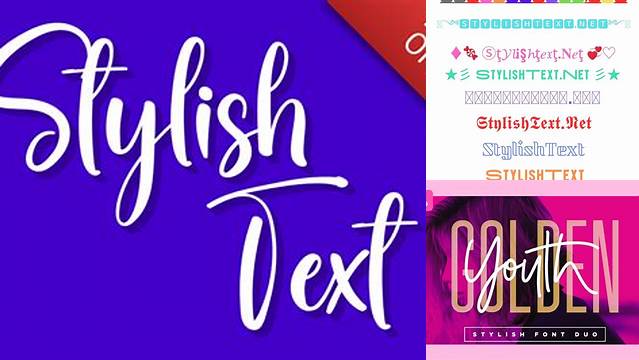
Pretty Fonts Generator: Create Stylish Text Online
What is a Pretty Fonts Generator?
Hey guys! Ever wanted to make your text look super cool and eye-catching? That's where a pretty fonts generator comes in handy. It's basically a tool that lets you transform regular text into something way more stylish using different fonts and characters. Instead of being stuck with the same old default font, you can jazz things up with cursive, bold, italic, or even funky decorative fonts. These generators are super user-friendly – you just type in your text, pick a font you like, and bam! You've got some seriously awesome text ready to copy and paste wherever you need it.
These generators work by utilizing Unicode characters. Unicode is a universal character encoding standard that assigns a unique number to each character, no matter the platform, program, or language. A pretty fonts generator uses these Unicode characters to create stylized text. While it looks like you're changing the font, you're actually replacing standard characters with their visually altered Unicode equivalents. This means you can use these "fonts" almost anywhere, even on social media platforms that don't allow you to change the font directly.
The great thing about using a pretty fonts generator is that it doesn't require you to download or install anything. Everything happens online, making it super convenient. Plus, they often come with a bunch of different font styles to choose from, so you can really find something that matches your vibe. Whether you're creating captions for Instagram, designing eye-catching headings for your blog, or just want to add some flair to your messages, a pretty fonts generator is a quick and easy way to make your text stand out. It's all about making your content more visually appealing and grabbing people's attention in a fun and creative way.
Why Use a Font Generator?
So, why should you even bother using a font generator? Well, there are tons of reasons! First off, it's a fantastic way to add some personality to your text. Let's be honest, default fonts can be pretty boring. A font generator lets you inject your own style and make your messages, posts, and designs truly unique. Whether you're aiming for elegant, playful, or edgy, there's a font out there that perfectly captures the vibe you're going for.
Another great reason to use a pretty fonts generator is to make your content stand out. In today's crowded digital world, it's getting harder and harder to grab people's attention. Using a unique font can be just the thing to make your social media posts, website headings, or marketing materials pop. A visually appealing font can catch the eye and entice people to stop scrolling and actually read what you have to say. Think of it as a way to add some visual oomph to your content, making it more memorable and shareable.
Font generators are also incredibly useful for creating a consistent brand identity. If you're running a business or building a personal brand, using the same fonts across all your materials can help create a cohesive and professional look. A font generator allows you to easily create text in your chosen style, ensuring that your branding remains consistent across all platforms. This can help increase brand recognition and make your business look more polished and professional.
Using a font generator can save you a ton of time and effort. Instead of manually searching for and installing different fonts, you can simply use a font generator to quickly create stylish text in seconds. This is especially useful if you need to create a lot of content quickly. Plus, many font generators offer additional features, such as the ability to add symbols, emojis, and other decorative elements, further enhancing your text.
Different Types of Font Styles
Alright, let's dive into the fun part – the different types of font styles you can play around with using a pretty fonts generator! There's a whole world of options out there, from elegant scripts to bold and funky designs. Knowing what's available can help you pick the perfect font to match your message and overall aesthetic. Let's take a peek at some popular categories:
Cursive Fonts: Cursive fonts are all about elegance and sophistication. They mimic the look of handwriting, with flowing strokes and connected letters. These fonts are perfect for adding a touch of class to invitations, greeting cards, or any design that needs a refined feel. They bring a sense of artistry and grace.
Bold Fonts: When you need to make a statement, bold fonts are your go-to. With their thick, heavy strokes, they command attention and add emphasis to your text. These fonts are great for headlines, titles, and anything else you want to stand out. They convey confidence and strength.
Italic Fonts: Italic fonts lean to the right, giving your text a slanted and stylish look. They're often used to add emphasis, highlight specific words, or create a sense of movement. Italic fonts can also bring a touch of elegance to your designs, especially when paired with a contrasting font style.
Decorative Fonts: If you're looking to get creative and playful, decorative fonts are the way to go. These fonts come in a wide variety of styles, from whimsical and cartoonish to futuristic and abstract. They're perfect for adding a unique and eye-catching touch to your designs. Just be sure to use them sparingly, as they can sometimes be difficult to read.
Gothic Fonts: Gothic fonts, also known as blackletter fonts, have a distinctive medieval look. They feature intricate, angular letterforms that evoke a sense of history and tradition. These fonts are great for adding a touch of drama and sophistication to your designs, especially in historical or fantasy-themed projects.
Retro Fonts: Take a trip down memory lane with retro fonts! These fonts capture the essence of past decades, from the groovy 70s to the neon 80s. They're perfect for adding a nostalgic touch to your designs, whether you're creating a vintage-inspired poster or a retro-themed website.
Pixel Fonts: Pixel fonts are all about simplicity and minimalism. They mimic the look of old-school computer screens, with their blocky, pixelated letterforms. These fonts are great for adding a techy or retro feel to your designs, especially in video game-themed projects.
How to Use a Pretty Fonts Generator
Using a pretty fonts generator is super easy and straightforward. You don't need any fancy design skills or technical know-how. Just follow these simple steps, and you'll be creating stylish text in no time!
Step 1: Find a Font Generator: The first step is to find a font generator online. There are tons of free options available, so just do a quick search and pick one that looks good to you. Some popular choices include LingoJam, Cool Symbol, and FontGet. Most of these generators work in a similar way, so don't worry too much about which one you choose. Just make sure it's a reputable site and doesn't require you to download anything.
Step 2: Type Your Text: Once you've found a font generator, simply type your text into the input box. This is where you'll write the message or phrase you want to stylize. You can type anything you want, from a single word to a whole paragraph. Just keep in mind that longer pieces of text may look cluttered in certain font styles, so it's best to use shorter phrases for maximum impact.
Step 3: Choose a Font Style: After you've typed your text, it's time to choose a font style. Most font generators will display a list of available fonts below the input box. Simply scroll through the list and click on the font you like. As you click, the text in the output box will change to reflect the selected font style. Take your time and experiment with different fonts until you find one that perfectly matches your vision.
Step 4: Copy and Paste: Once you've found the perfect font, simply copy the text from the output box. You can do this by highlighting the text and pressing Ctrl+C (or Cmd+C on a Mac) or by right-clicking and selecting "Copy". Then, simply paste the text wherever you want to use it. You can paste it into social media posts, emails, documents, or any other application that supports text.
Step 5: Enjoy Your Stylish Text: That's it! You've successfully created stylish text using a font generator. Now you can enjoy your eye-catching messages and designs. Remember, you can always go back and experiment with different fonts and styles to create even more unique looks.
Where to Use Your New Fonts
Okay, so you've got some awesome new fonts – great! But where can you actually use them? The beauty of these pretty fonts generator fonts is that they're super versatile. Because they're based on Unicode characters, you can pretty much use them anywhere you can paste text. Here are some cool ideas:
- Social Media: This is a big one! Use your fancy fonts to jazz up your Instagram captions, Twitter bios, Facebook posts, and even TikTok videos. A unique font can help your content stand out from the crowd and grab people's attention.
- Messaging Apps: Add some flair to your text messages, WhatsApp chats, and Telegram conversations. Surprise your friends with a fun and stylish message. It's a great way to add some personality to your everyday communication.
- Online Forums and Communities: Use unique fonts in your forum signatures, posts, and profiles. It's a great way to express yourself and make your presence known in online communities.
- Website Headings and Titles: If you have a blog or website, use stylish fonts in your headings and titles to make your content more visually appealing. Just be sure to use them sparingly, as too many different fonts can make your site look cluttered.
- Presentations: Add some visual interest to your presentations by using unique fonts in your slides. A well-chosen font can help emphasize key points and make your presentation more engaging.
- Invitations and Cards: Create beautiful and personalized invitations, greeting cards, and thank-you notes using stylish fonts. It's a great way to add a touch of elegance and sophistication to your special occasions.
- Resumes and Cover Letters: Stand out from the competition by using a unique font in your resume and cover letter. Just be sure to choose a font that is professional and easy to read.
Limitations of Font Generators
While pretty fonts generators are super handy, it's important to be aware of their limitations. They're not perfect, and there are some things you should keep in mind before you start using them everywhere.
Not Real Fonts: First off, it's important to remember that these aren't real fonts in the traditional sense. They're actually sets of Unicode characters that look like different fonts. This means they might not display correctly on all devices or platforms. Some older systems or browsers might not support all the Unicode characters used by these generators, which can result in your text appearing as boxes or question marks.
Accessibility Issues: Another potential issue is accessibility. People who use screen readers or other assistive technologies might have difficulty interpreting these stylized characters. This can make your content inaccessible to people with disabilities, which is definitely something you want to avoid. When in doubt, it's always best to stick with standard fonts that are designed to be accessible.
Inconsistency Across Platforms: The appearance of these fonts can also vary across different platforms and devices. What looks great on your computer might not look so great on someone else's phone. This is because different operating systems and browsers use different rendering engines, which can affect how Unicode characters are displayed. So, it's always a good idea to test your text on different devices to make sure it looks consistent.
Limited Font Choices: While there are many different font styles available, the selection is still limited compared to traditional font libraries. You might not be able to find the exact font you're looking for, and you might have to settle for something that's close but not quite perfect.
Copy-Pasting Issues: Sometimes, copying and pasting text from a font generator can cause formatting issues. The text might not paste correctly, or it might lose its formatting when pasted into certain applications. This can be frustrating, but there are usually ways to fix it. Try pasting the text into a plain text editor first, and then copy it from there into your final destination.
Pretty Fonts Generator for Social Media
Using a pretty fonts generator for social media is like giving your online presence a stylish makeover. It's all about making your posts stand out in a sea of sameness. Think of it as adding a personal touch to your digital voice, making your content more engaging and memorable. Whether you're crafting the perfect Instagram caption, tweeting out a witty observation, or updating your Facebook status, a unique font can help you grab attention and express your personality.
The key to rocking a pretty fonts generator on social media is knowing how to use it effectively. You don't want to go overboard and make your posts look cluttered or hard to read. Instead, focus on using fonts strategically to highlight key points, add emphasis, or create a specific mood. For example, you might use a cursive font for a romantic quote, a bold font for a powerful statement, or a playful font for a lighthearted joke.
When choosing a font, consider the overall tone and style of your social media presence. Are you going for a sophisticated and elegant look? Or do you prefer a more casual and playful vibe? Choose fonts that align with your brand and help you convey the message you want to send. And don't be afraid to experiment! Try out different fonts and see what works best for you.
Another important tip is to make sure your fonts are easy to read. While fancy fonts can be eye-catching, they're not always the most legible. Avoid fonts that are too small, too thin, or too intricate. You want your followers to be able to read your posts without straining their eyes.
Finally, be mindful of accessibility. Not everyone can see or read your fonts in the same way. Some users might have visual impairments or use screen readers. To make your social media posts more accessible, consider adding alternative text to your images and using standard fonts whenever possible. You can also use emojis and symbols to add visual interest without relying solely on fancy fonts.
Pretty Fonts Generator for Instagram
Instagram is all about visuals, right? So, using a pretty fonts generator can really help you level up your Insta game. Think about it: everyone's scrolling through endless feeds, so you need something to make your captions pop. A cool font can be that little extra something that catches someone's eye and makes them stop to read what you have to say.
Now, Instagram doesn't let you change the actual font within the app itself. That's where these font generators come in handy. You type your caption into the generator, pick a font you like, copy the stylized text, and paste it into your Instagram caption. Boom! Instant visual upgrade.
But here's the thing: you don't want to go overboard. A super fancy, hard-to-read font might look cool at first glance, but if people can't easily read your caption, they're just going to scroll on by. You want something that's both stylish and legible. Cursive fonts can be great for adding a touch of elegance, while bold fonts can help you emphasize key points. Just make sure it's easy on the eyes.
Another tip: use fonts sparingly. A little bit of a cool font can go a long way. Try using it for the first sentence of your caption to grab attention, or for a key word or phrase that you want to highlight. You don't need to use a fancy font for every single word.
And remember, accessibility matters. Some people use screen readers to access Instagram, and those screen readers might not be able to interpret your fancy fonts correctly. To make your content more accessible, consider adding alternative text to your images and using emojis to add visual interest. You can also use standard fonts for the main part of your caption and reserve the fancy fonts for shorter, more decorative elements.
Online Font Generator Tools
When it comes to online font generator tools, you've got a ton of options to choose from. Some are simple and straightforward, while others offer a wide range of features and customization options. Here are a few popular choices to get you started:
LingoJam: LingoJam is a super easy-to-use font generator that's perfect for beginners. Just type your text into the input box, and it will instantly generate a variety of different font styles. You can then copy and paste the stylized text wherever you need it. LingoJam is great for creating quick and simple fonts for social media or messaging apps.
Cool Symbol: Cool Symbol is another popular font generator that offers a wide range of different font styles, including cursive, bold, italic, and decorative fonts. It also includes a variety of symbols and emojis that you can add to your text. Cool Symbol is great for creating more elaborate and eye-catching fonts.
FontGet: FontGet is a comprehensive font website that offers a wide range of free fonts that you can download and use in your projects. It also includes a font generator tool that allows you to create stylized text using different fonts. FontGet is a great resource for finding high-quality fonts for both personal and commercial use.
Fancy Text Generator: Fancy Text Generator is a simple and straightforward font generator that offers a variety of different font styles, including cursive, bold, italic, and upside-down text. It also includes a variety of symbols and emojis that you can add to your text. Fancy Text Generator is great for creating quick and fun fonts for social media or messaging apps.
Texty Text: Texty Text is a font generator that's designed specifically for social media. It offers a variety of different font styles that are optimized for use on platforms like Instagram, Twitter, and Facebook. Texty Text is great for creating fonts that will stand out in the crowded social media landscape.
When choosing a font generator tool, consider your needs and preferences. Some tools are better for creating simple fonts, while others are better for creating more elaborate fonts. Some tools are free, while others require a subscription. Experiment with different tools until you find one that you like.
Free Font Generator Websites
Looking for a pretty fonts generator that won't cost you a dime? You're in luck! There are tons of free font generator websites out there that let you create stylish text without spending any money. These websites are great for personal use, social media, or any other project where you want to add a touch of flair without breaking the bank.
One of the best things about free font generator websites is that they're super easy to use. You don't need any special design skills or technical know-how. Just type your text into the input box, choose a font style, and copy the stylized text. It's that simple!
Many free font generator websites offer a wide range of different font styles to choose from, including cursive, bold, italic, and decorative fonts. You can also find fonts that are inspired by different eras, such as retro fonts, gothic fonts, and pixel fonts.
Some free font generator websites also include additional features, such as the ability to add symbols, emojis, and other decorative elements to your text. This can help you create even more unique and eye-catching fonts.
When using a free font generator website, it's important to be aware of the limitations. Some websites may display ads, while others may limit the number of fonts you can generate per day. Additionally, the quality of the fonts may vary from website to website. Always test your fonts on different devices to make sure they look consistent.
Here are a few popular free font generator websites to get you started:
- LingoJam
- Cool Symbol
- Fancy Text Generator
- Texty Text
Stylish Text Generator Apps
If you're always on the go and prefer to create stylish text on your phone or tablet, then a pretty fonts generator app might be just what you need. These apps let you create unique and eye-catching fonts directly from your mobile device, making it super convenient to add flair to your social media posts, messages, and more.
One of the great things about stylish text generator apps is that they're often more user-friendly than websites. They're designed specifically for mobile devices, so they're optimized for touchscreens and smaller screens. This can make it easier to browse fonts, customize your text, and copy and paste your creations.
Many stylish text generator apps offer a wide range of different font styles to choose from, including cursive, bold, italic, and decorative fonts. You can also find fonts that are inspired by different themes, such as fantasy fonts, holiday fonts, and sports fonts.
Some stylish text generator apps also include additional features, such as the ability to create custom fonts, add backgrounds to your text, and share your creations directly to social media.
When choosing a stylish text generator app, consider the features that are most important to you. Do you want an app that offers a wide range of fonts? Or do you prefer an app that's easy to use and has a clean interface? Read reviews and try out different apps until you find one that you like.
Here are a few popular stylish text generator apps to get you started:
- Stylish Text
- Fonts
- Text Font
- Cool Fonts
Cool Text Generator Effects
Looking to add some extra oomph to your text? A pretty fonts generator can do more than just change the font style – it can also add cool text effects that will make your words really pop. These effects can range from simple shadows and outlines to more complex gradients and animations.
One popular text effect is the shadow effect, which adds a subtle shadow behind your text to give it a 3D look. This effect can be used to make your text stand out from the background and add depth to your designs.
Another popular text effect is the outline effect, which adds a border around your text to make it more visible. This effect can be used to highlight key words or phrases and make your text easier to read.
Some text generators also offer gradient effects, which create a smooth transition between two or more colors within your text. This effect can be used to add visual interest to your designs and create a sense of depth.
For those who want to take their text effects to the next level, some text generators offer animation effects. These effects can make your text move, fade in and out, or even rotate. Animation effects can be used to grab attention and create a dynamic and engaging user experience.
When using text effects, it's important to use them sparingly. Too many effects can make your text look cluttered and difficult to read. Instead, focus on using a few well-chosen effects to enhance your message and create a visual impact.
Fancy Text Generator Symbols
One of the coolest things about using a pretty fonts generator is the ability to add fancy symbols to your text. These symbols can range from simple hearts and stars to more complex glyphs and characters. Adding symbols to your text can help you express your personality, add visual interest, and create a unique and eye-catching look.
Many font generators offer a wide range of different symbols to choose from, including:
- Hearts
- Stars
- Arrows
- Checkmarks
- X marks
- Numbers
- Letters
- Punctuation marks
- Currency symbols
- Mathematical symbols
When using symbols in your text, it's important to use them appropriately. Too many symbols can make your text look cluttered and difficult to read. Instead, focus on using a few well-chosen symbols to enhance your message and add visual interest.
You can use symbols to:
- Highlight key words or phrases
- Add emphasis to your message
- Express your emotions
- Create a sense of whimsy
- Add a personal touch to your text
When choosing symbols, consider the overall tone and style of your message. If you're writing a formal document, you'll want to use simple and understated symbols. If you're writing a casual message to a friend, you can use more playful and expressive symbols.
Decorative Text Generator Designs
If you really want to make your text stand out, consider using a pretty fonts generator that offers decorative designs. These designs can add a touch of elegance, whimsy, or edginess to your text, making it truly unique and memorable.
Decorative text generator designs can include:
- Borders
- Frames
- Patterns
- Ornaments
- Flourishes
- Swirls
These designs can be used to:
- Create eye-catching headlines
- Enhance social media posts
- Design personalized invitations
- Add flair to presentations
- Decorate websites and blogs
When using decorative text generator designs, it's important to use them sparingly. Too many designs can make your text look cluttered and overwhelming. Instead, focus on using a few well-chosen designs to enhance your message and create a visual impact.
Consider the overall tone and style of your message when choosing decorative designs. If you're writing a formal document, you'll want to use simple and understated designs. If you're writing a casual message to a friend, you can use more playful and expressive designs.
Aesthetic Font Generator Styles
In the world of online aesthetics, having the right font style can make all the difference. An aesthetic font generator is a tool that helps you create text with unique and visually appealing styles that align with different aesthetic themes. Whether you're aiming for a minimalist, vintage, or futuristic vibe, these generators offer a variety of font options to match your desired look.
One popular aesthetic font style is the minimalist font. These fonts are characterized by their clean lines, simple shapes, and lack of ornamentation. They're perfect for creating a modern and sophisticated look, and they work well in a variety of applications, from website design to social media posts.
Another popular aesthetic font style is the vintage font. These fonts are inspired by the fonts of the past, and they often feature serifs, distressed textures, and other design elements that evoke a sense of nostalgia. Vintage fonts are perfect for creating a retro or historical look, and they work well in projects like posters, invitations, and branding materials.
For those who prefer a more futuristic look, there are also a variety of futuristic fonts available. These fonts are characterized by their geometric shapes, sharp angles, and use of negative space. Futuristic fonts are perfect for creating a modern and tech-savvy look, and they work well in projects like website design, video games, and science fiction novels.
When choosing an aesthetic font style, it's important to consider the overall message you're trying to convey. The font style should complement your content and help you create a cohesive and visually appealing design.
Unique Font Generator Ideas
Ready to get super creative? A pretty fonts generator isn't just about picking a pre-made style. You can use them to come up with truly unique font ideas that reflect your personality or brand. Think outside the box and experiment with different combinations of fonts, symbols, and effects to create something that's never been seen before.
One fun idea is to combine two different font styles. For example, you could use a bold font for the main part of your text and a cursive font for the accents. This can create a visually interesting and dynamic look.
Another idea is to incorporate symbols and emojis into your text. You can use them to highlight key words, add emphasis to your message, or simply add a touch of whimsy.
You can also experiment with different text effects, such as shadows, outlines, and gradients. These effects can add depth, dimension, and visual interest to your text.
If you're feeling really adventurous, you can try creating your own custom font. Some font generators allow you to modify existing fonts or create new fonts from scratch. This can be a challenging but rewarding way to express your creativity.
No matter what you do, don't be afraid to experiment and try new things. The key to creating unique font ideas is to let your imagination run wild and see what you can come up with.
Font Generator for Branding
When it comes to branding, every detail matters – and that includes your font choice. A pretty fonts generator can be a surprisingly useful tool for creating a consistent and recognizable brand identity. By using a consistent font style across all your marketing materials, you can create a strong and cohesive brand image that resonates with your target audience.
Your font choice can communicate a lot about your brand's personality. For example, a serif font might convey a sense of tradition and authority, while a sans-serif font might convey a sense of modernity and innovation. A handwritten font might convey a sense of warmth and personality, while a geometric font might convey a sense of precision and efficiency.
When choosing a font for your branding, consider your target audience, your brand values, and your overall brand message. The font should be visually appealing, easy to read, and consistent with your brand's personality.
Once you've chosen a font, use it consistently across all your marketing materials, including your website, logo, social media profiles, business cards, and brochures. This will help create a strong and recognizable brand identity that customers will remember.
A pretty fonts generator can help you easily create text in your chosen font style for all your branding needs. Just type your text into the generator, select your font, and copy the stylized text. It's that simple!
Text Generator for Logos
Your logo is the face of your brand, so it's important to make it stand out. A pretty fonts generator can be a valuable tool for creating a unique and memorable logo. While you might not want to rely solely on a font generator for your entire logo design, it can be a great way to experiment with different text styles and find a font that perfectly captures your brand's essence.
When using a text generator for logos, focus on simplicity and readability. Your logo should be easy to understand at a glance, even at small sizes. Avoid using overly complex or decorative fonts that can be difficult to read.
Consider the overall tone and style of your brand when choosing a font for your logo. If you're running a serious business, you'll want to choose a professional and understated font. If you're running a more playful business, you can use a more creative and expressive font.
Experiment with different font combinations and text effects to create a unique and eye-catching logo. You can also add symbols and graphics to your logo to make it even more distinctive.
Once you've created a logo that you're happy with, make sure to use it consistently across all your branding materials. This will help create a strong and recognizable brand identity that customers will remember.
Font Generator for Websites
Your website is your online storefront, so it's important to make it visually appealing and easy to navigate. A pretty fonts generator can help you create a website that's both stylish and user-friendly. By using a consistent font style across your website, you can create a cohesive and professional look that enhances the user experience.
When choosing fonts for your website, consider readability and accessibility. Your fonts should be easy to read on all devices and screen sizes. Avoid using overly decorative or stylized fonts that can be difficult to decipher.
Use different font sizes and styles to create a clear hierarchy of information on your website. Use larger fonts for headlines and titles and smaller fonts for body text. Use bold fonts to highlight key words and phrases.
Consider using a font pairing strategy to create a visually interesting and balanced design. Pair a serif font with a sans-serif font to create contrast and visual interest.
Use a pretty fonts generator to easily create text in your chosen font styles for all your website content. Just type your text into the generator, select your font, and copy the stylized text. It's that simple!
Using Pretty Fonts Generator for Marketing
In the competitive world of marketing, standing out from the crowd is essential. A pretty fonts generator can be a secret weapon to add a touch of creativity and visual appeal to your marketing materials. Whether it's social media posts, email campaigns, or promotional graphics, a well-chosen font can capture attention and convey your brand's message effectively.
For social media, where visuals reign supreme, using a unique font can help your posts grab eyeballs as users scroll through their feeds. Imagine a captivating headline with a stylish font drawing attention to your latest product or service. Font generators make it easy to create such engaging content.
Email marketing can also benefit from creative fonts. A well-designed email with visually appealing text can entice recipients to open and read your message. However, it's crucial to ensure that the chosen fonts are compatible with most email clients to avoid display issues.
Promotional graphics, such as banners and posters, can also be enhanced with attractive fonts. Whether you're advertising a sale, promoting an event, or showcasing a new product, the right font can make your graphics more eye-catching and memorable.
Remember to maintain consistency in your font choices across all your marketing channels to build brand recognition. Consistency helps create a cohesive brand image that customers will remember and associate with your business.
Pretty Fonts Generator: Dos and Donts
Using a pretty fonts generator can be fun and effective, but it's essential to follow some dos and don'ts to ensure you're using them wisely and avoid common pitfalls. Here's a quick guide:
Dos:
- Do Choose fonts that align with your brand's personality and message.
- Do Maintain consistency in your font choices across all your marketing materials.
- Do Consider readability and accessibility when selecting fonts.
- Do Use fonts strategically to highlight key points and add emphasis.
- Do Test your fonts on different devices and platforms to ensure compatibility.
Donts:
- Don't Overuse fancy fonts, as they can make your text cluttered and difficult to read.
- Don't Choose fonts that are too small or thin, as they can be hard to see.
- Don't Use fonts that are incompatible with certain platforms or devices.
- Don't Neglect accessibility, as some users may have difficulty reading stylized fonts.
- Don't Forget to proofread your text, as font generators can sometimes introduce errors.
By following these dos and don'ts, you can make the most of pretty fonts generators and create visually appealing and effective designs that enhance your brand's message.